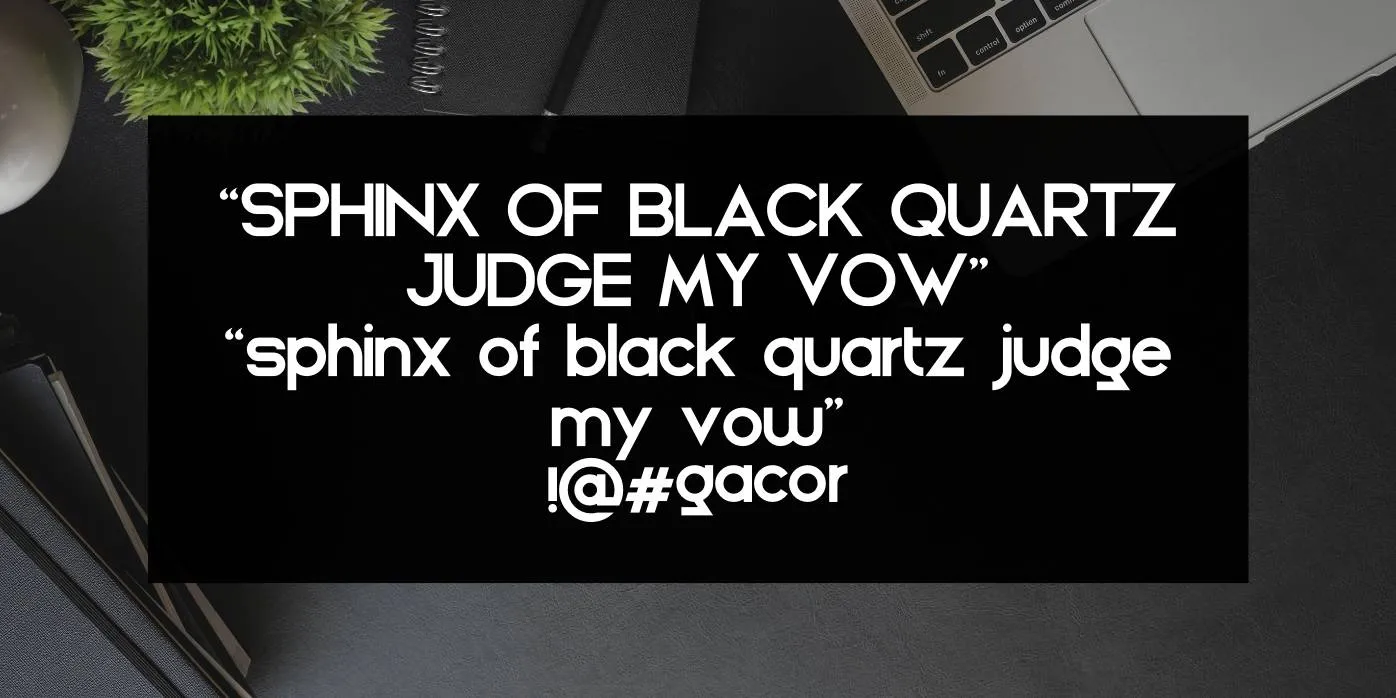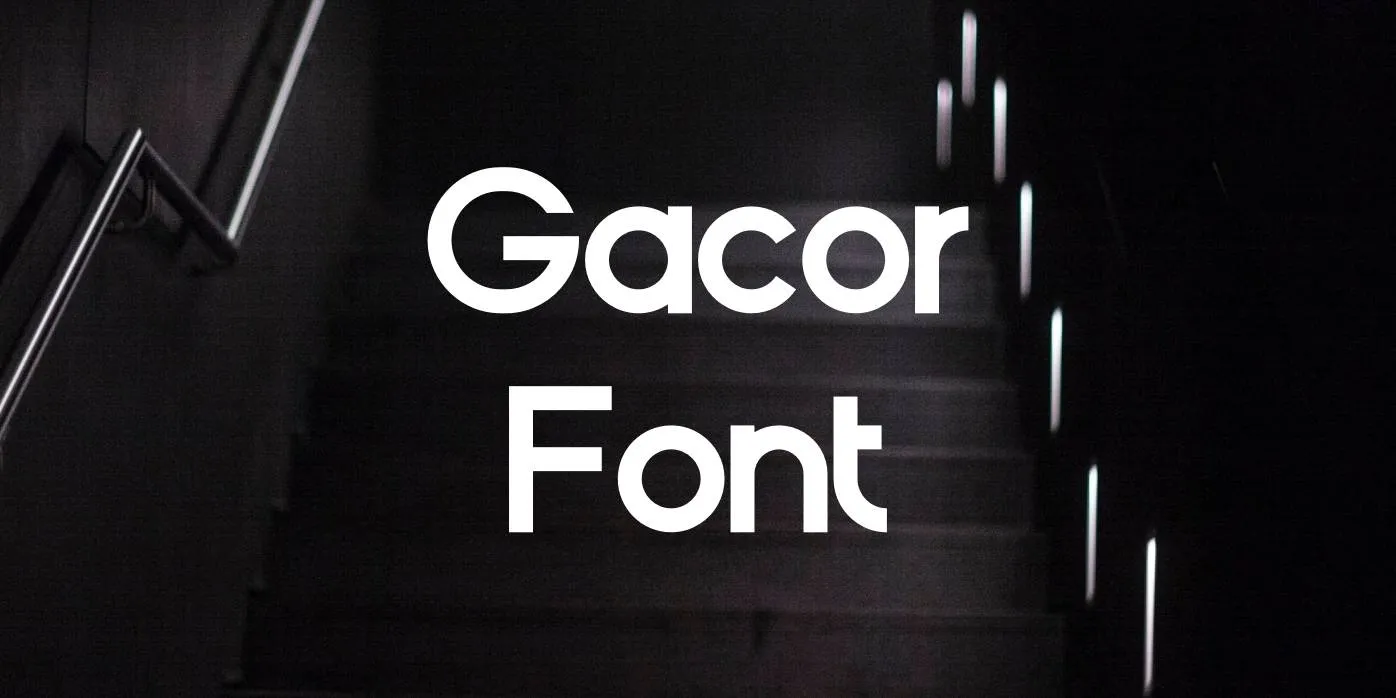
Gacor Font
Gacor Font is a sans serif typeface that was designed by Indonesian type designer Arwan Sutanto in 2019. The name Gacor is derived from the word ‘gaga’, which means ‘valiant’ or ‘brave’ in Indonesian. This Font was designed to be a display typeface that is suitable for use in printing and display designs. This font is not available on Google Store but you can get similar ones there.
The typeface has a strong personality and is inspired by the classic sans serif typefaces of the early 20th century. The Font family includes 6 weights: Light, Regular, Bold, Black, Extra Black, and Ultra Black. The fonts are available in both TTF and OTF formats. The typeface is also matched with other calligraphy typefaces and has a matching personality with lovely font, you can make brand new design stuff with mix these two typefaces as well.